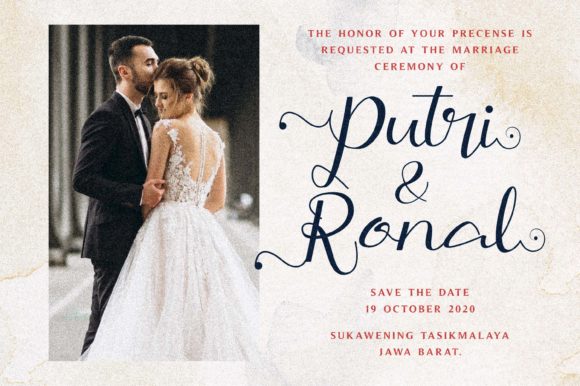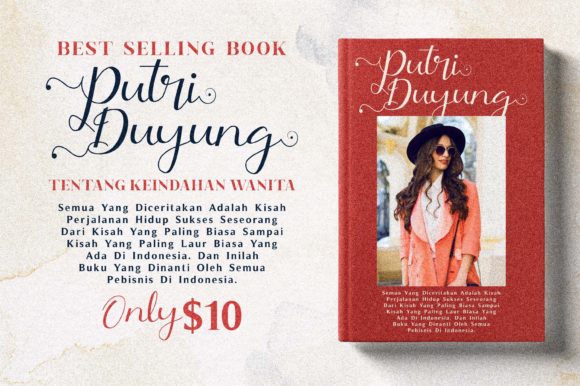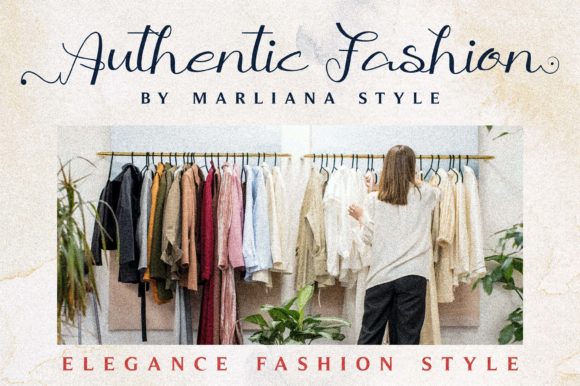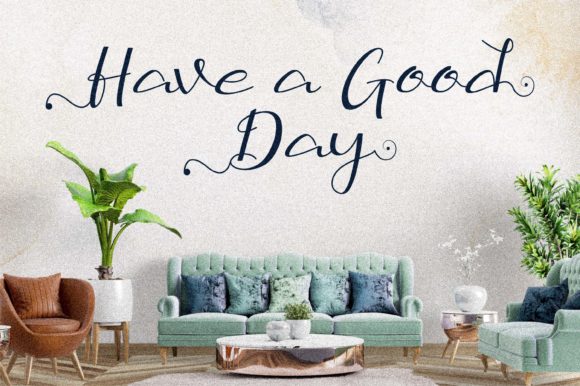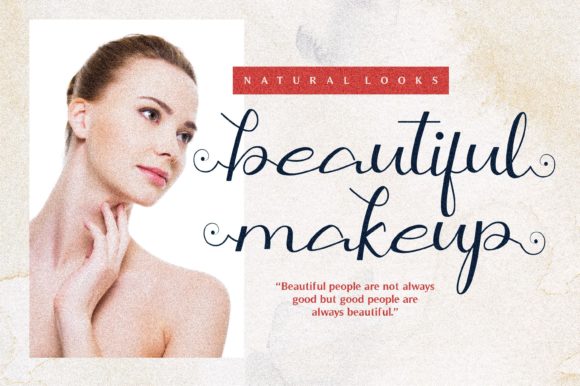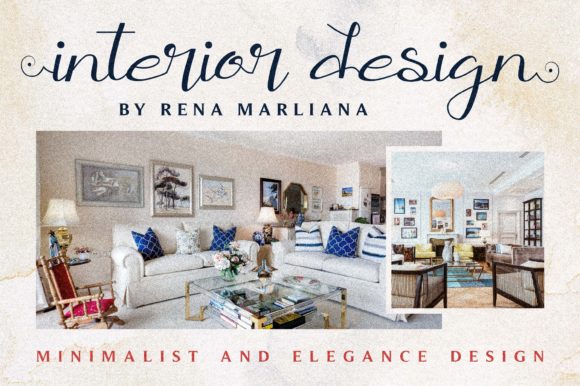
Introduction to Putri Duyung Font
Have you ever stumbled upon a design that sparks joy and inspires creativity? That’s exactly what happened when we discovered the Putri Duyung Font. Its elegant touch and flowing handwritten style make it the perfect companion for any creative project. Whether you’re designing a wedding invitation, a branding material, or a social media graphic, this font is sure to elevate your work to the next level.
With its PUA encoded glyphs and swashes, you can easily access and customize the font to fit your design needs. Imagine having the freedom to create high-quality designs with a transparent background, effortlessly blending your text with the rest of the composition. The Putri Duyung Font is a valuable resource for designers, offering a unique and timeless style that will make your projects stand out.
Key Features of Putri Duyung Font
- Unique Mermaid-Inspired Design: The Putri Duyung Font features a stunning mermaid-inspired design, perfect for creative projects that require a touch of whimsy and fantasy.
- Perfect for Creative Projects: With its enchanting mermaid design, this font is perfect for creative projects such as children’s books, fantasy novels, or even advertising campaigns.
Honest Review: Putri Duyung Font
- ✨ High-quality design that’s perfect for a variety of creative projects.
- ✨ Unique and eye-catching font style that’s sure to grab attention.
- ⚠️ The font may not be suitable for formal or professional projects, due to its playful and whimsical style.
- ⚠️ Some users may find the font a bit too decorative, which could make it difficult to read in certain contexts.
Overall, I’m impressed with the Putri Duyung Font. It’s a great design resource for those looking to add some creativity and flair to their projects. With its high-quality design and easy-to-use format, it’s a must-have for any designer or artist looking to add a unique touch to their work.
The Putri Duyung Font is ideal for:
- Designing a logo or brand identity.
- Creating a wedding invitation or other special event materials.
- Adding a touch of elegance to a website or social media graphics.